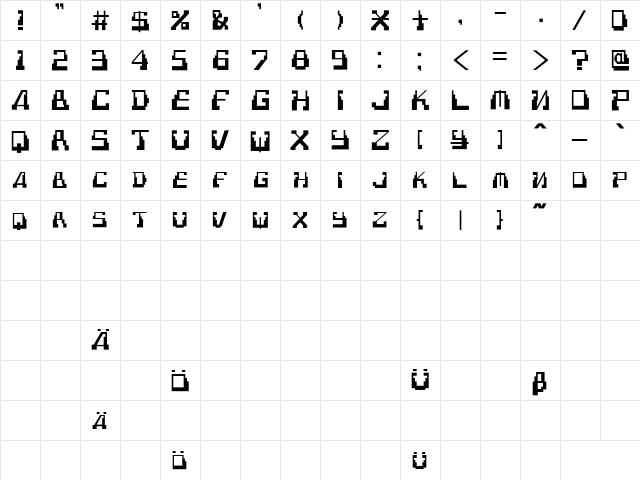
Technodelic Regular
Design Context for Technodelic Typeface
Technodelic has a distinctly futuristic character, with geometric precision and clean angles that feel at home in technology, gaming, and sci-fi contexts.
Pro Tip: Use Technodelic in combination with a neutral sans for body text. Let it define the brand voice in headlines while keeping reading comfortable elsewhere.